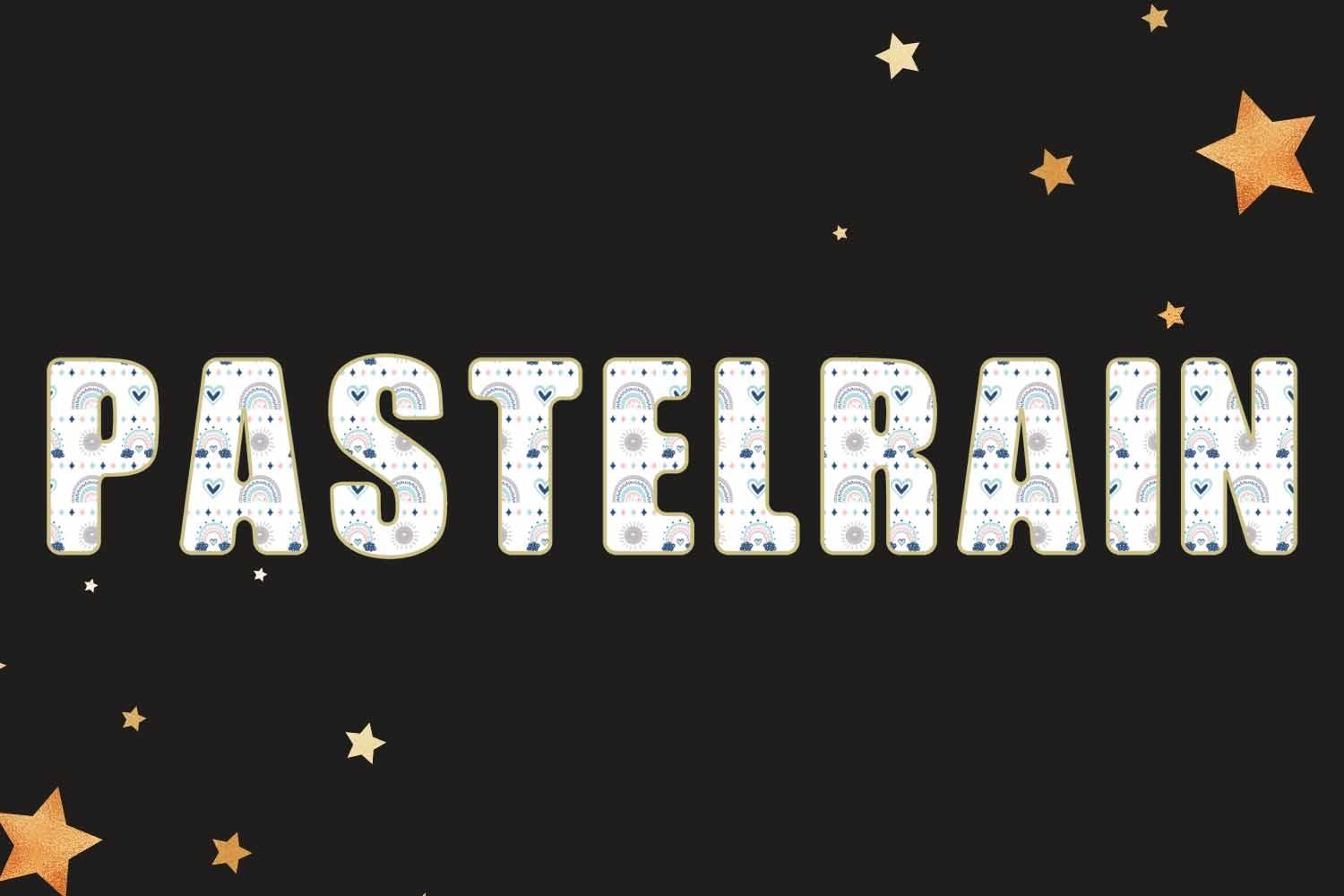
Pastelrain Font Description
Pastelrain is a color font that is decorated with beautiful illustrations of rainbows, suns, and hearts that will add a playful touch to any of your designs.